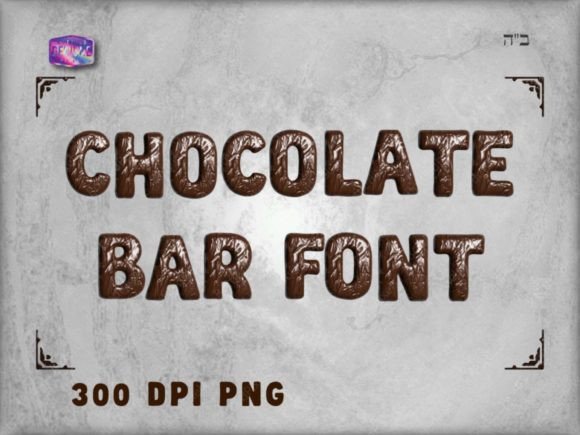
Get ready to embark on a typographic adventure with Chocolate Bar Font, a delectable display font that will tantalize your creative taste buds. This mouthwatering font is a feast for the eyes, featuring a vibrant palette that will add a dash of sweetness to your designs.
Indulge in the rich, creamy texture of Chocolate Bar Font. Each letter is crafted with meticulous care, showcasing a delightful 3D effect that adds depth and dimension to your creations. This font is the perfect choice for projects that demand a touch of whimsy and charm.
Transport your audience to a world of pure pleasure with Chocolate Bar Font. Its playful personality is ideal for party invitations, greeting cards, social media posts, and branding materials. Entice your customers with menus that ooze with flavor, or create eye-catching posters that will leave them craving more.
With Chocolate Bar Font, you'll discover endless opportunities to satisfy your creative hunger. Dive into a world of delectable design possibilities and let your imagination run wild. Don't resist the temptation to savor the delectable flavors of Chocolate Bar Font. Add it to your design toolkit today and unlock a world of typographic bliss.